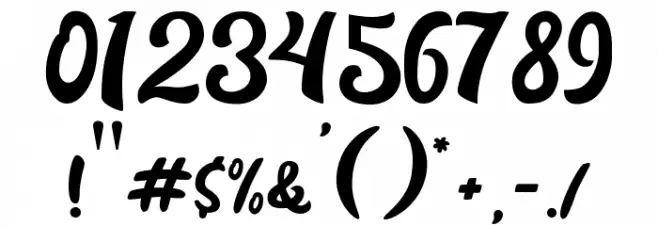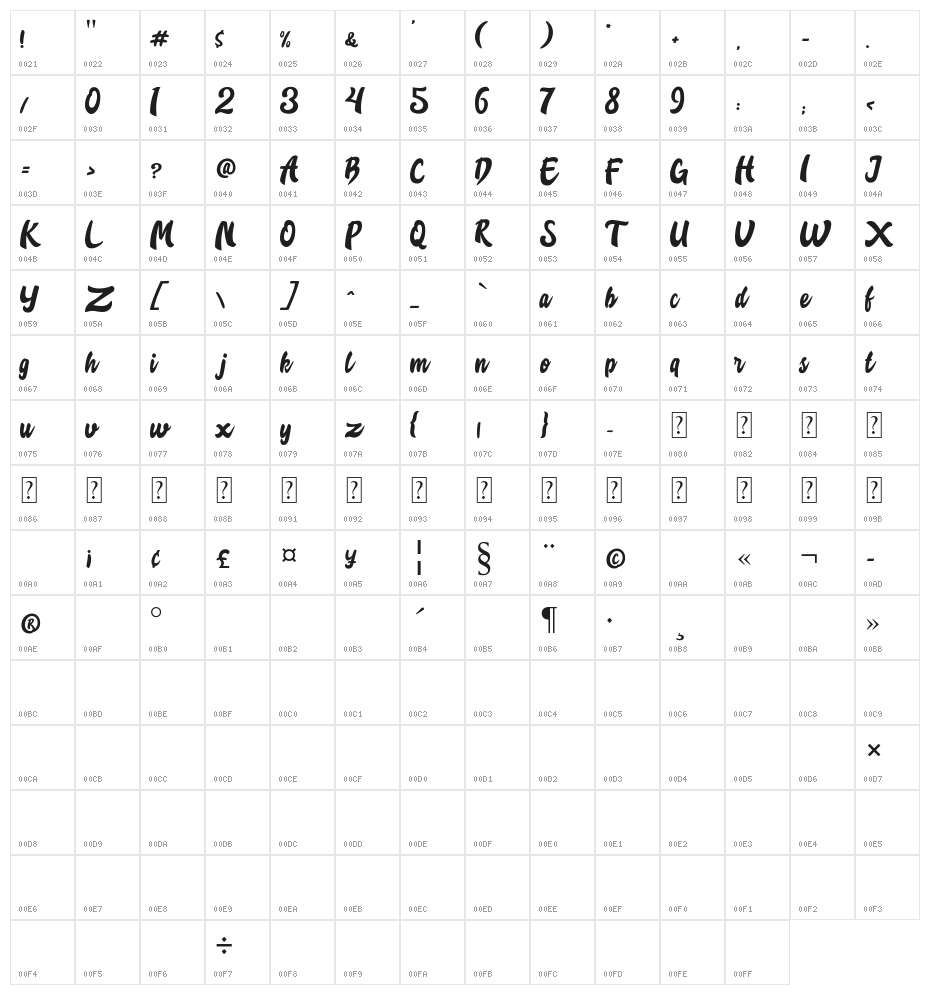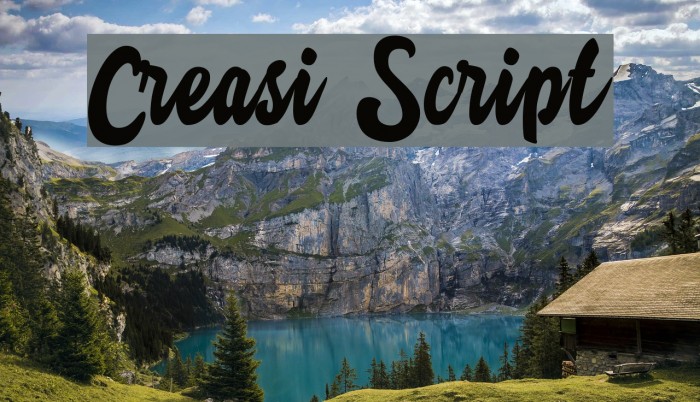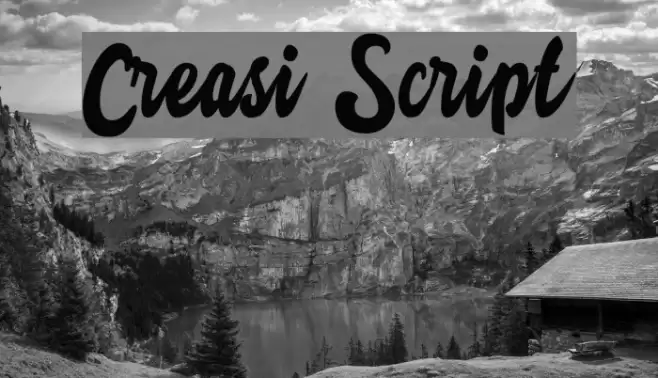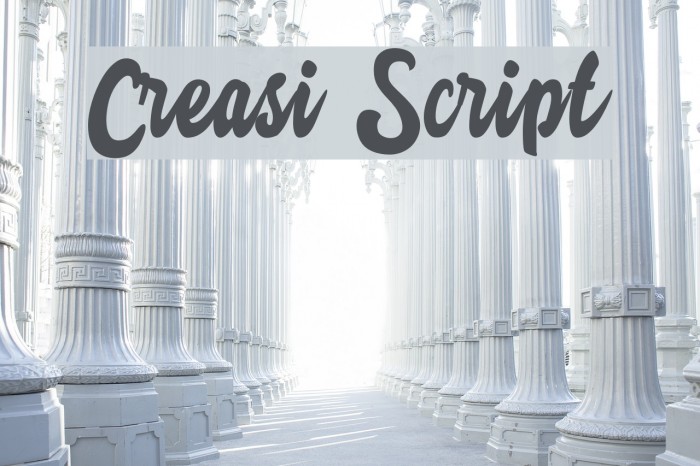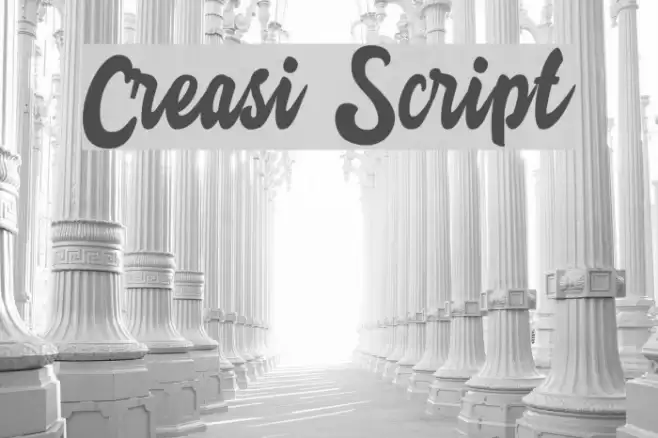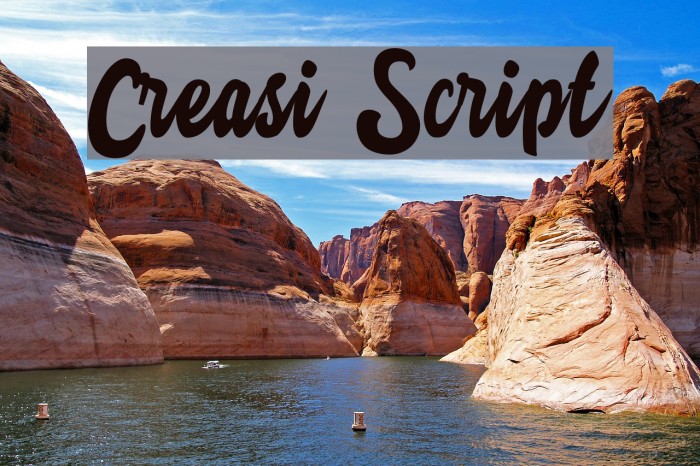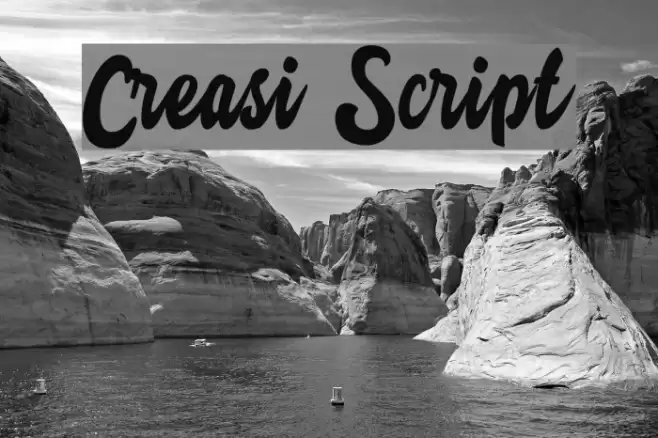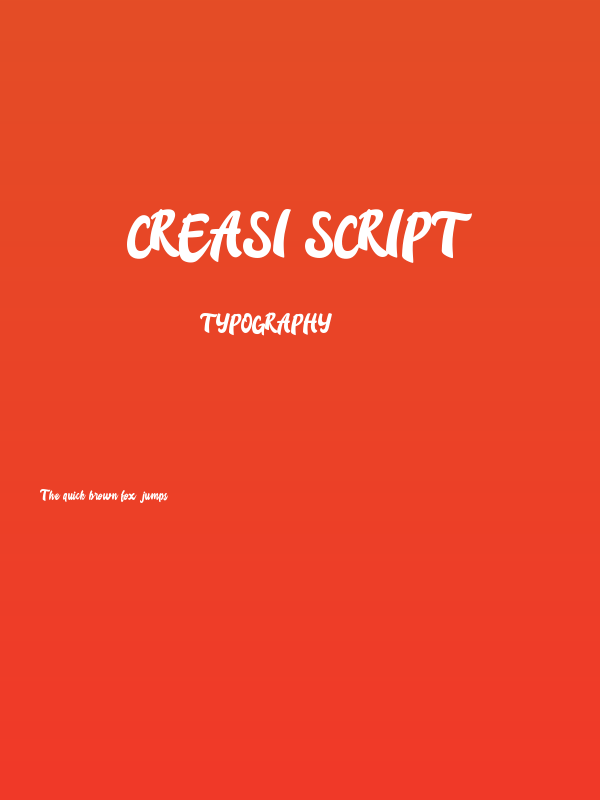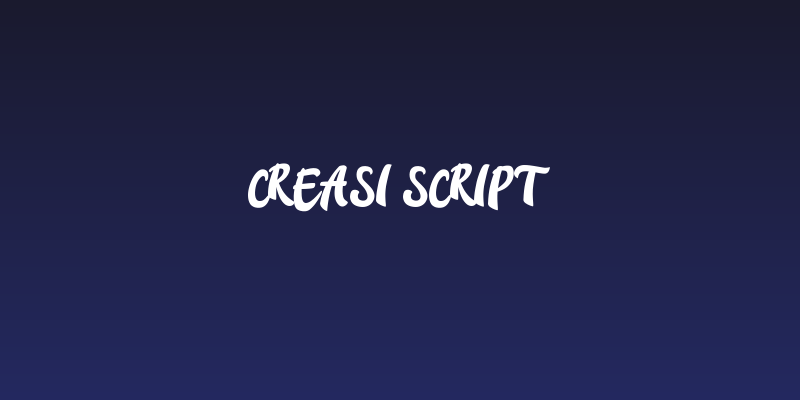
Creasi Script Font
Creasi Script Description
This font exudes a lively and dynamic energy with its bold, flowing script style. The characters are crafted with smooth, sweeping curves that give a sense of motion and elegance. Each letter is distinct, with a playful yet sophisticated flair, making it ideal for creative and expressive designs. The uppercase letters are particularly striking, with their bold strokes and dramatic presence, while the lowercase letters maintain a consistent flow, enhancing readability. The numerals and special characters are equally well-designed, ensuring versatility across various applications.
| Proposed Projects | Ideal for branding, invitations, greeting cards, and artistic projects that require a touch of elegance and creativity. |